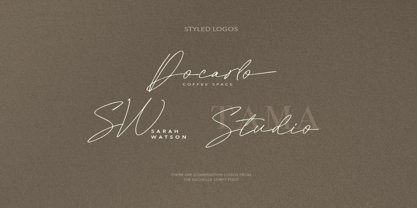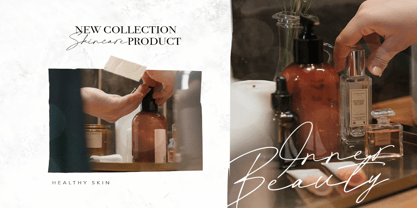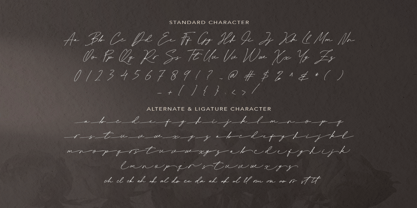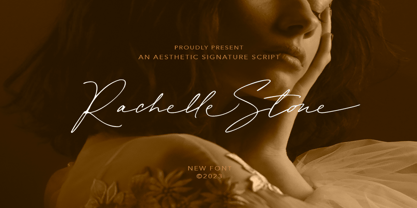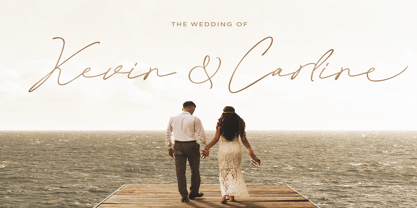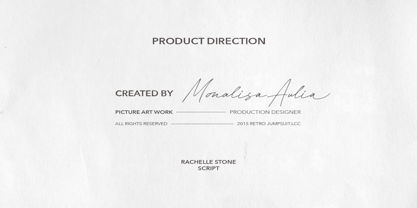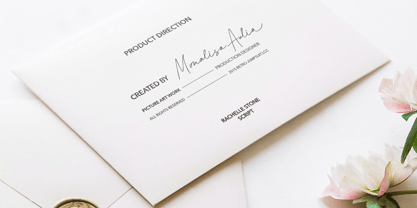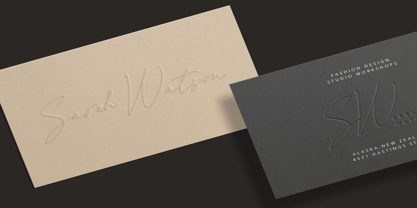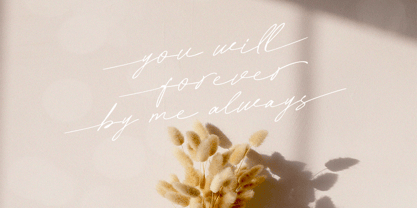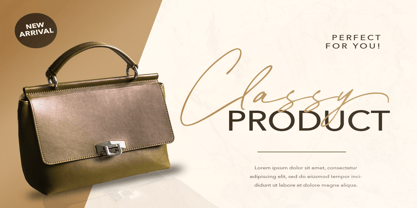
Rachelle Stone
von Bale Type
Die Schriftfamilie Rachelle Stone wurde von Sarid Ezra, Dzikrul Aulia entworfen und von Bale Type veröffentlicht. Rachelle Stone enthält 1 Stile.
Rachelle Stone is an aesthetic script font that have authentic looks for your signature. This font comes with ligatures and alternates that will make your project even more beautiful. With natural looks, you can use this font for any purposes, such as digital signature, logo, branding, quotes, and also for complimentary of your sans or serif font. This font also support multi language!
Designer: Sarid Ezra, Dzikrul Aulia
Herausgeber: Bale Type
Foundry: Bale Type
Eigentümer des Designs: Bale Type
Rachelle Stone